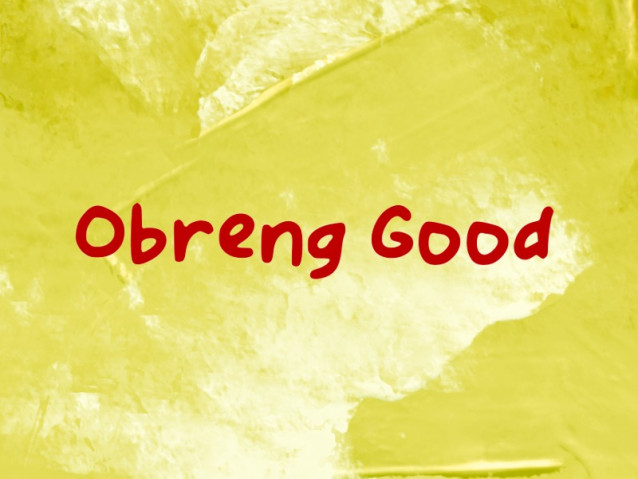
Obreng Good Font
Obreng Good Font is a simple and modern display font suitable for quotes, logos, headings, titles, and many more. Use it on any of your creative projects, and your designs will become outstanding!